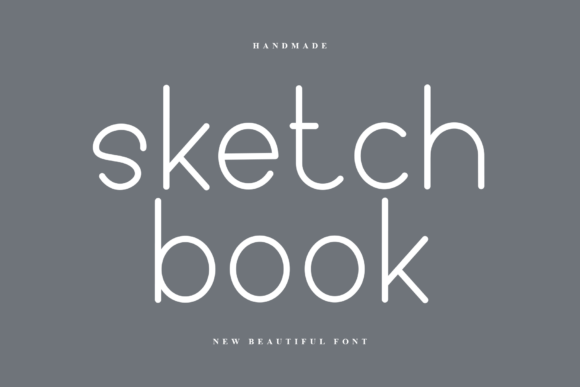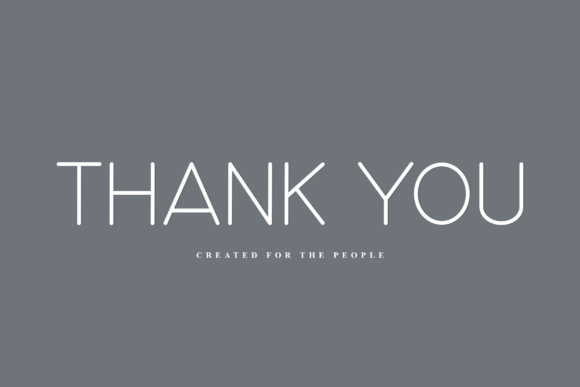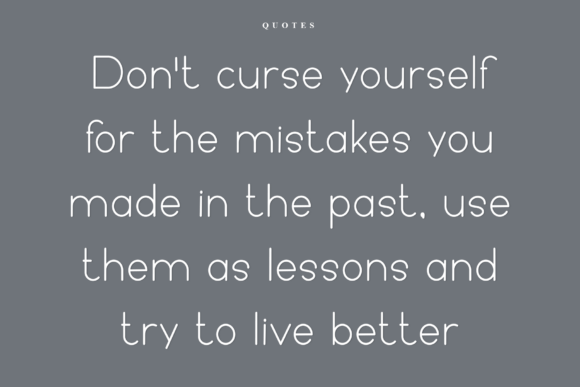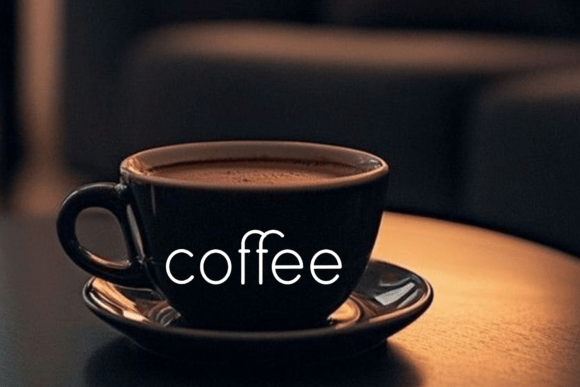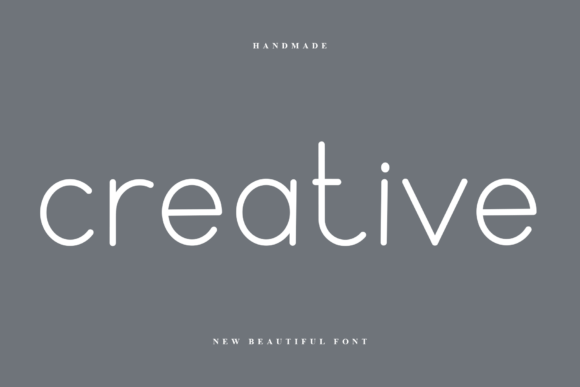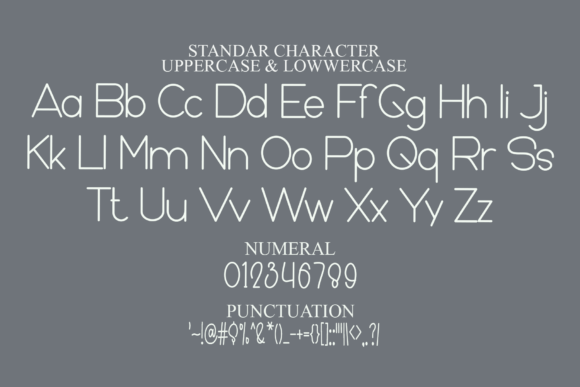
Decoding Font: The Ultimate Guide to a Charming and Versatile Typeface
Are you tired of using the same old fonts for your personal projects, invitations, and social media graphics? Look no further than Decoding, a casual and creative font that exudes warmth and friendliness. With its round, playful strokes, Decoding creates a relaxed and approachable feel that’s perfect for designers and crafters looking to add a personal touch to their work.
The Charm of Decoding Font
Decoding font is a hand-drawn typeface that boasts a charming and unique aesthetic. Its playful strokes and rounded edges create a fun and inviting atmosphere, making it ideal for a wide range of design applications. Whether you’re working on a personal project, creating invitations for a special occasion, or designing social media graphics, Decoding font is sure to add a touch of warmth and personality to your work.
Key Features of Decoding Font
- Hand-Drawn Aesthetic: The font’s charming, hand-drawn aesthetic adds a fun and unique touch to any design, making it perfect for designers and crafters looking to add a personal touch to their work.
- Playful Strokes: The font’s round, playful strokes create a relaxed and approachable feel, making it ideal for personal projects, invitations, and social media graphics.
Use Cases for Decoding Font
Decoding font is a versatile typeface that can be used in a wide range of design applications. Here are some use cases where Decoding font shines:
- Personal Projects: Add a personal touch to your personal projects, such as photo albums, scrapbooking, and DIY crafts.
- Invitations: Create beautiful and unique invitations for special occasions, such as weddings, birthday parties, and baby showers.
- Social Media Graphics: Use Decoding font to create engaging and eye-catching social media graphics, such as quotes, posters, and flyers.
- Crafting and DIY: Add a touch of personality to your crafting and DIY projects, such as handmade cards, gift tags, and labels.
Tips for Using Decoding Font
Here are some tips for getting the most out of Decoding font:
- Pair with Other Fonts: Experiment with pairing Decoding font with other fonts to create a unique and visually appealing combination.
- Use in Combination with Images: Use Decoding font in combination with images to add a touch of personality to your designs.
Decoding font is a charming and versatile typeface that’s perfect for designers and crafters looking to add a personal touch to their work. With its playful strokes, hand-drawn aesthetic, and PUA Encoded glyphs, Decoding font is a must-have for any designer or crafter looking to create unique and eye-catching designs. Whether you’re working on personal projects, invitations, social media graphics, or crafting and DIY projects, Decoding font is sure to become a favorite in your design arsenal.